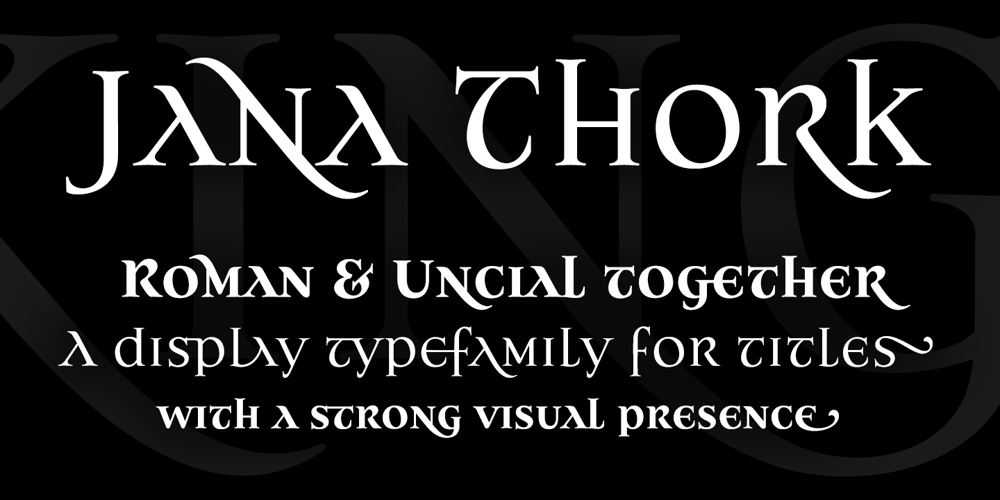
Jana Thork Font Family was designed by Ricardo Esteves Gomes and published by Outras Fontes. Jana Thork contains 2 styles and family package options. Jana Thork is a synthesis of stone engraved capital letterforms and uncial and half-uncial calligraphic styles. The idea of the typeface designer Ricardo Esteves was to seek for the limits between our uppercase and lowercase mental concepts. This family can be useful to compose titles, short texts, labels and letterings that need to look attractive to the eye. The family includes Regular and Bold styles, so it can be used in graphic designs that need more complex hierarchic relations or greater visual impact.